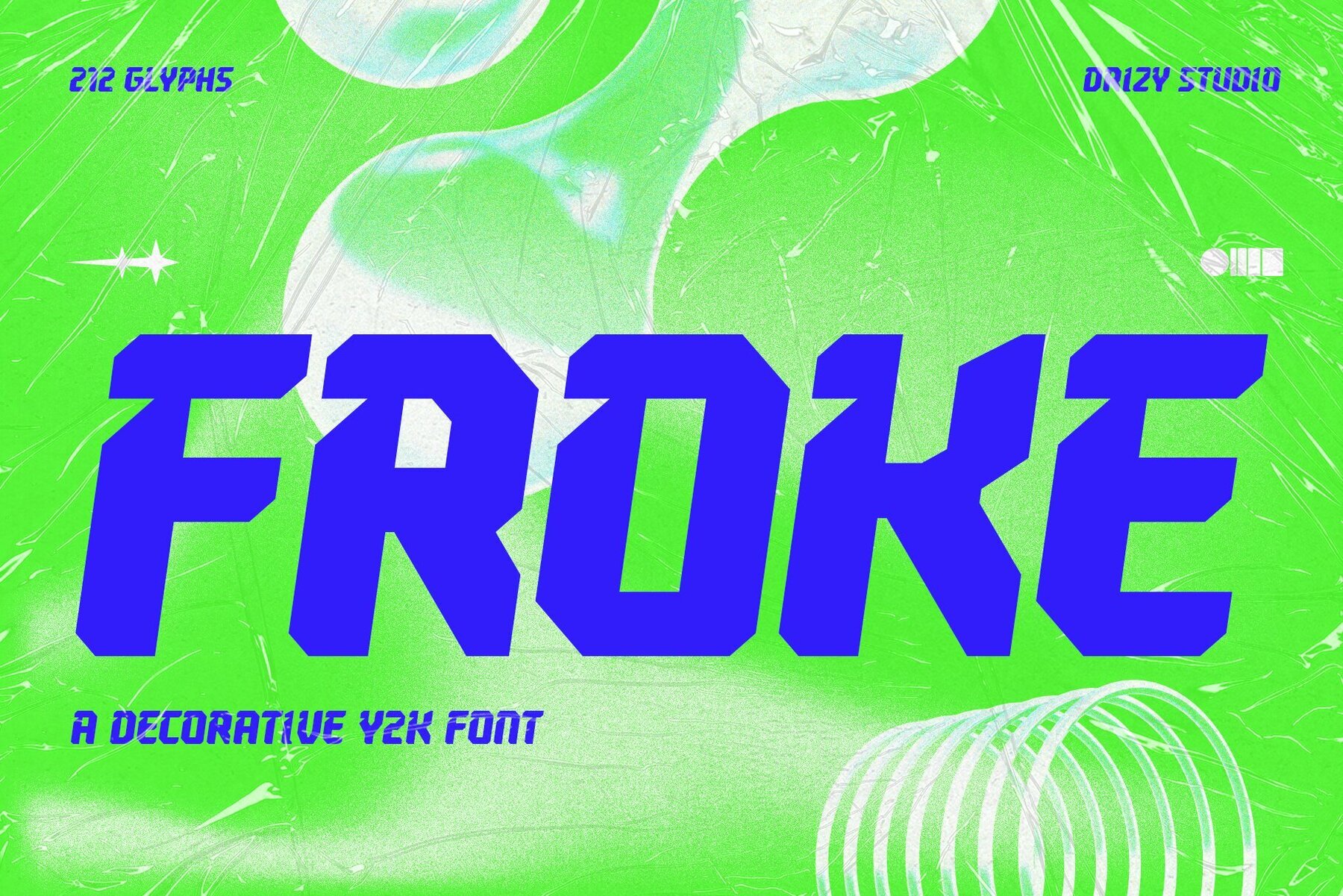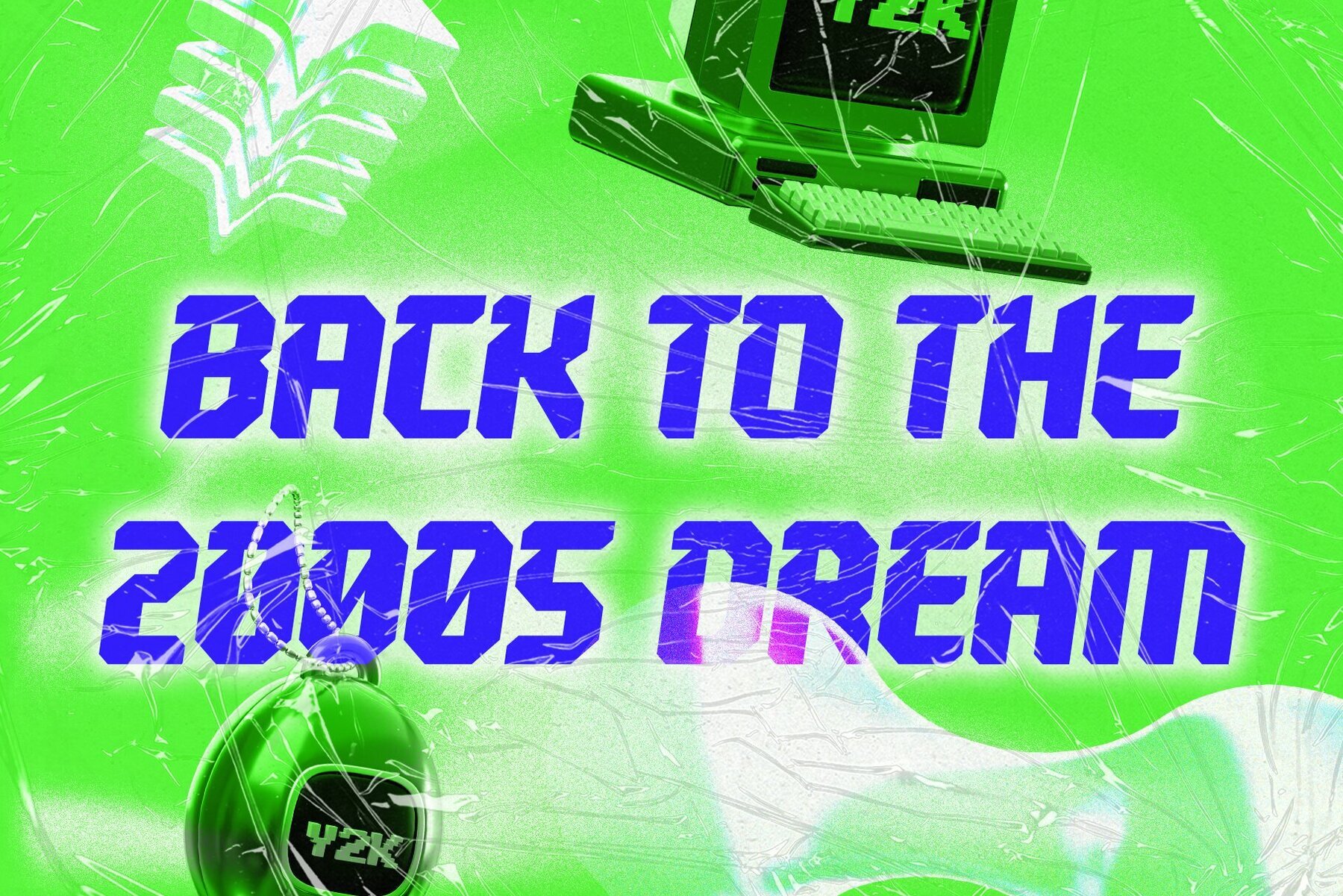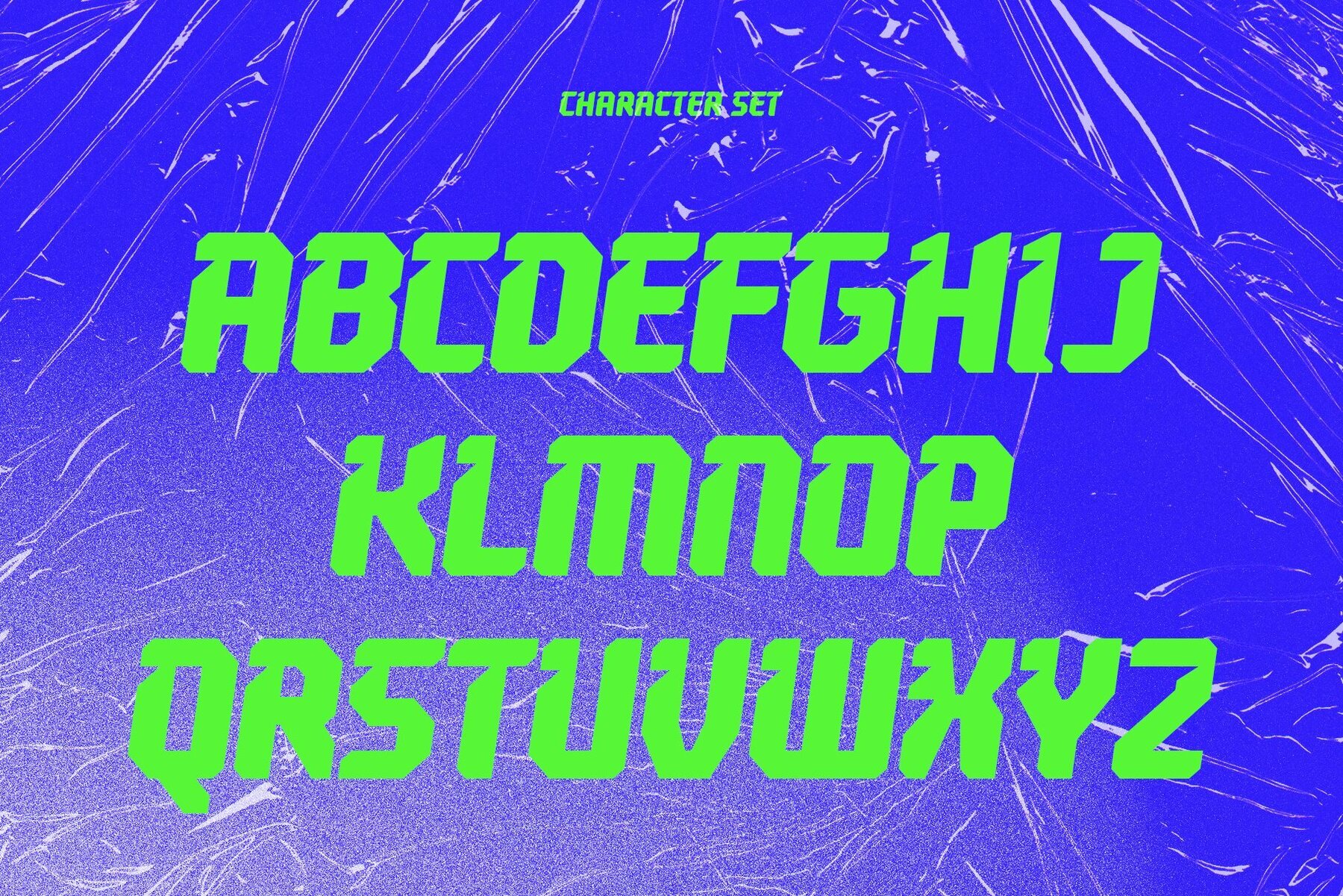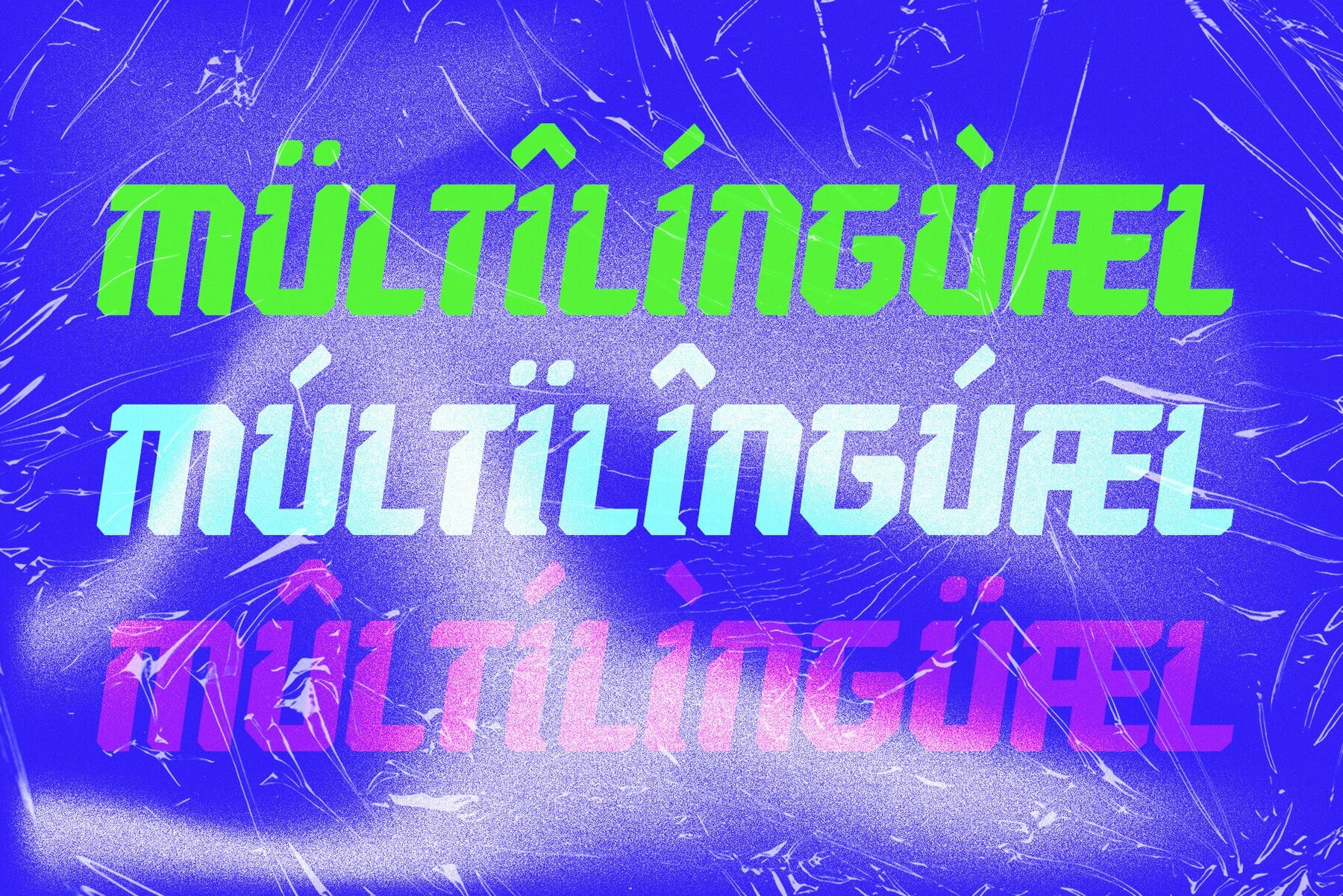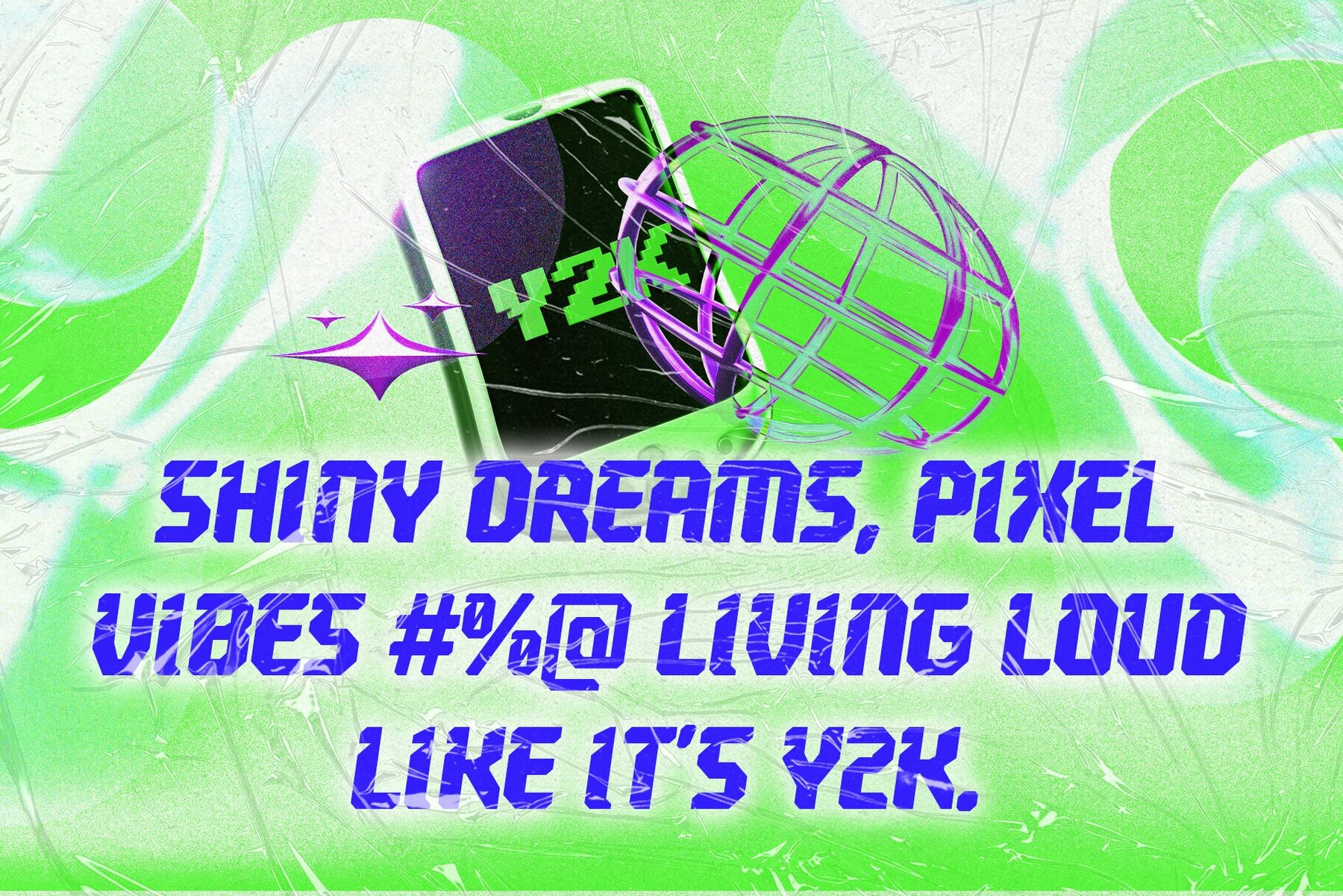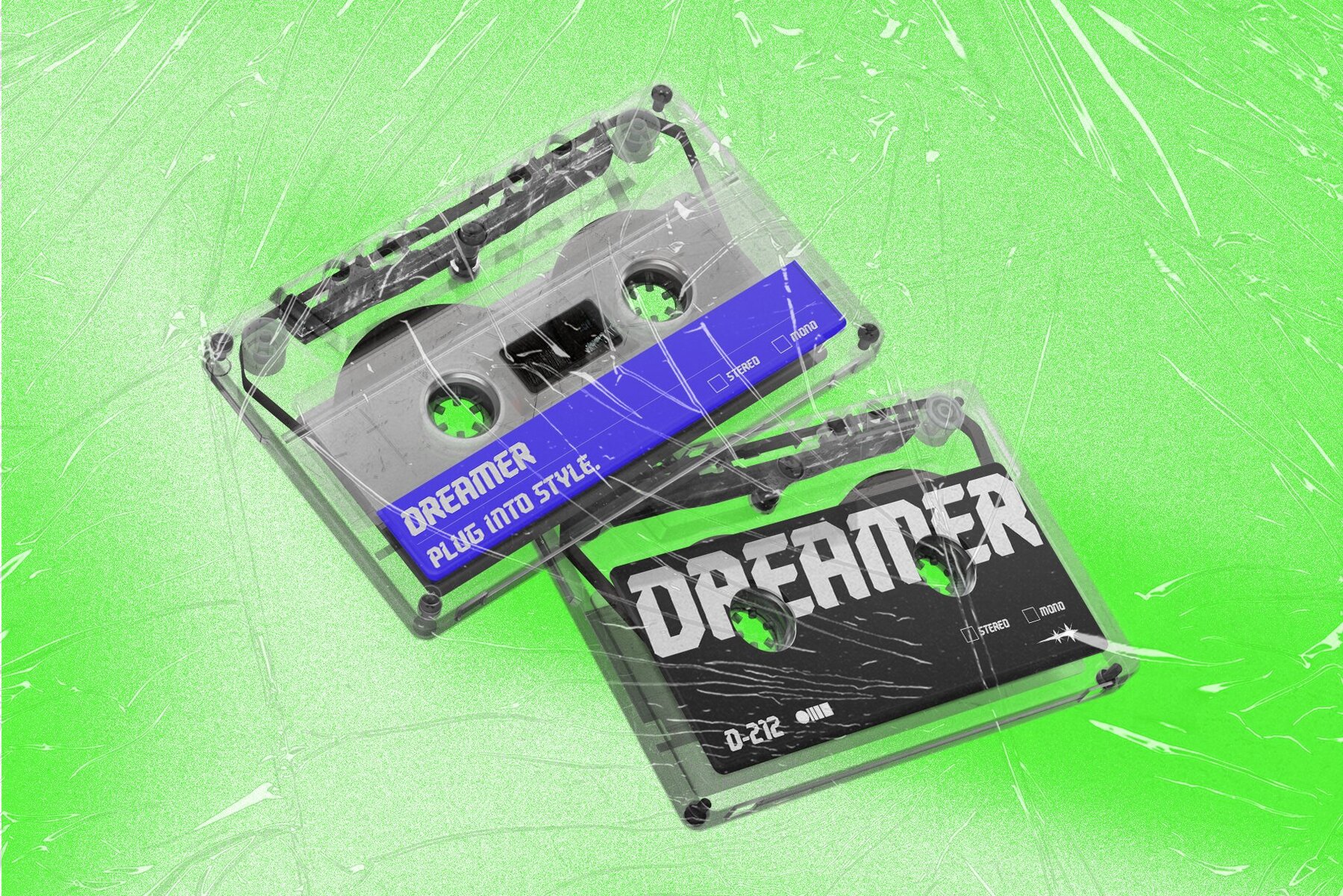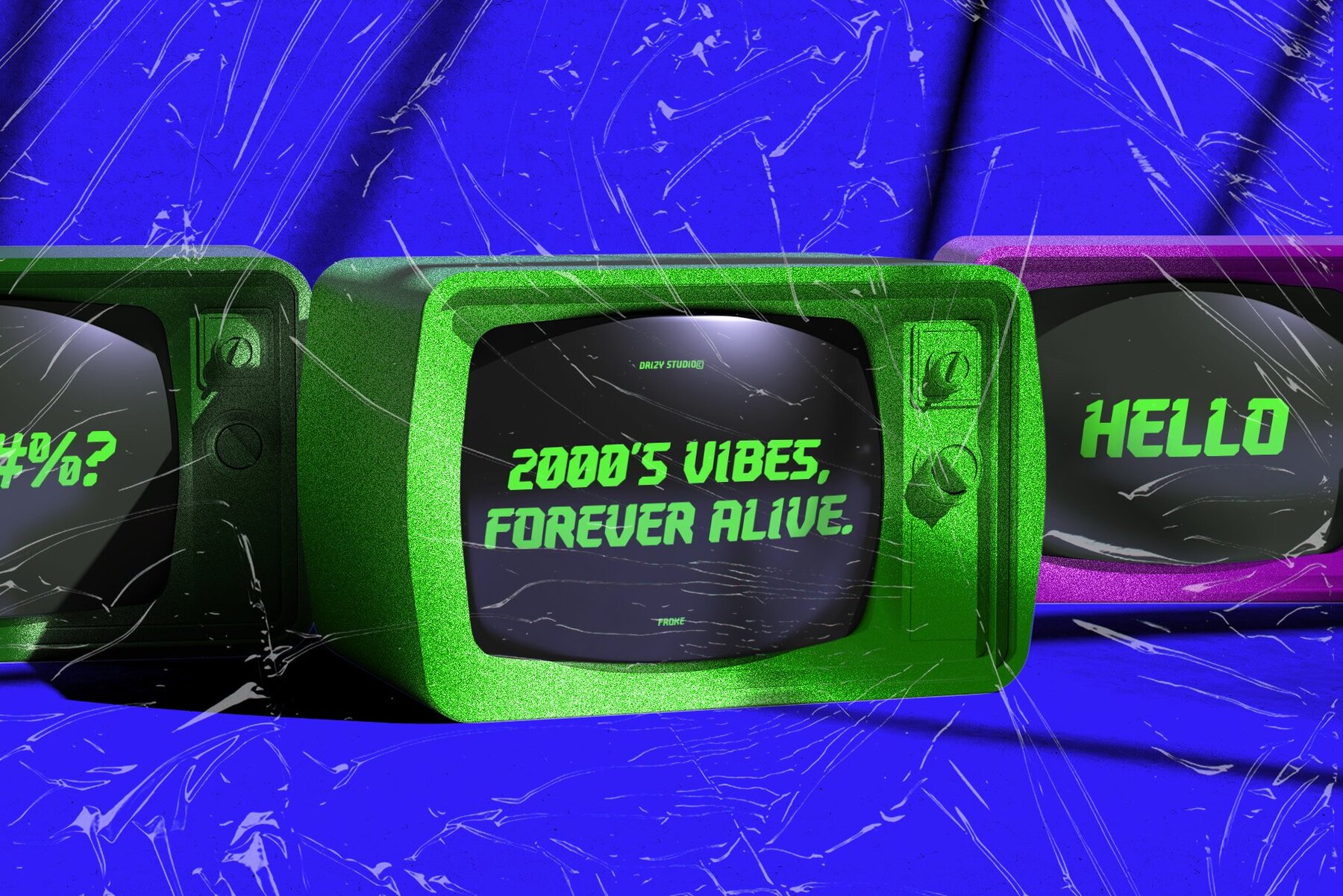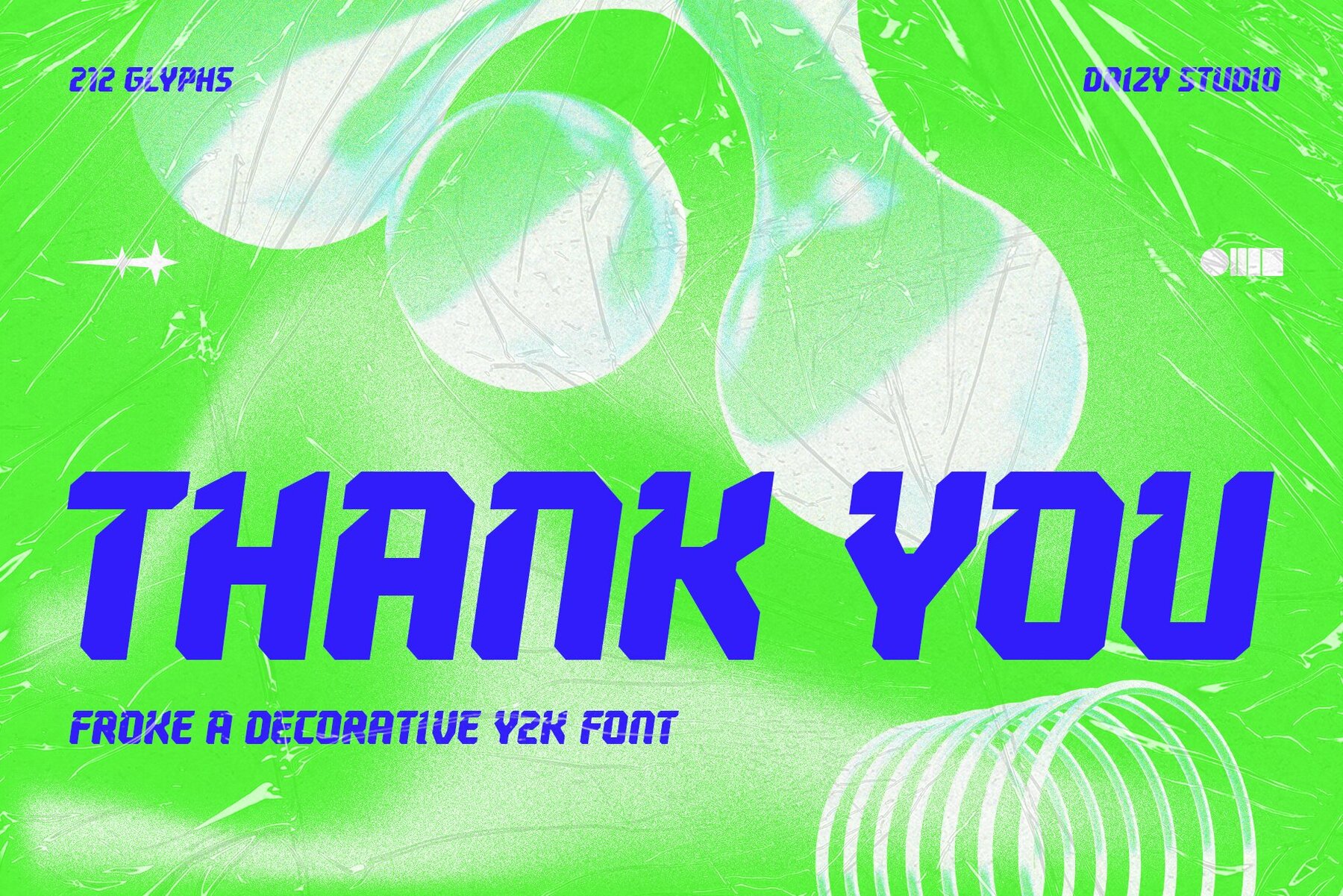
Froke Font
Froke Regular
Froke is a display font that boldly brings the Y2K aesthetic of Japan into today's designs. Merging sleek techno lines with a dose of retro cyber vibes, it evokes early 2000s futurism while embracing modern digital trends. Ideal for logos, posters, game titles, or fashion branding, Froke exudes a sharp, forward-looking energy with a uniquely Japanese flair.Froke: Bold Futuristic Display Font